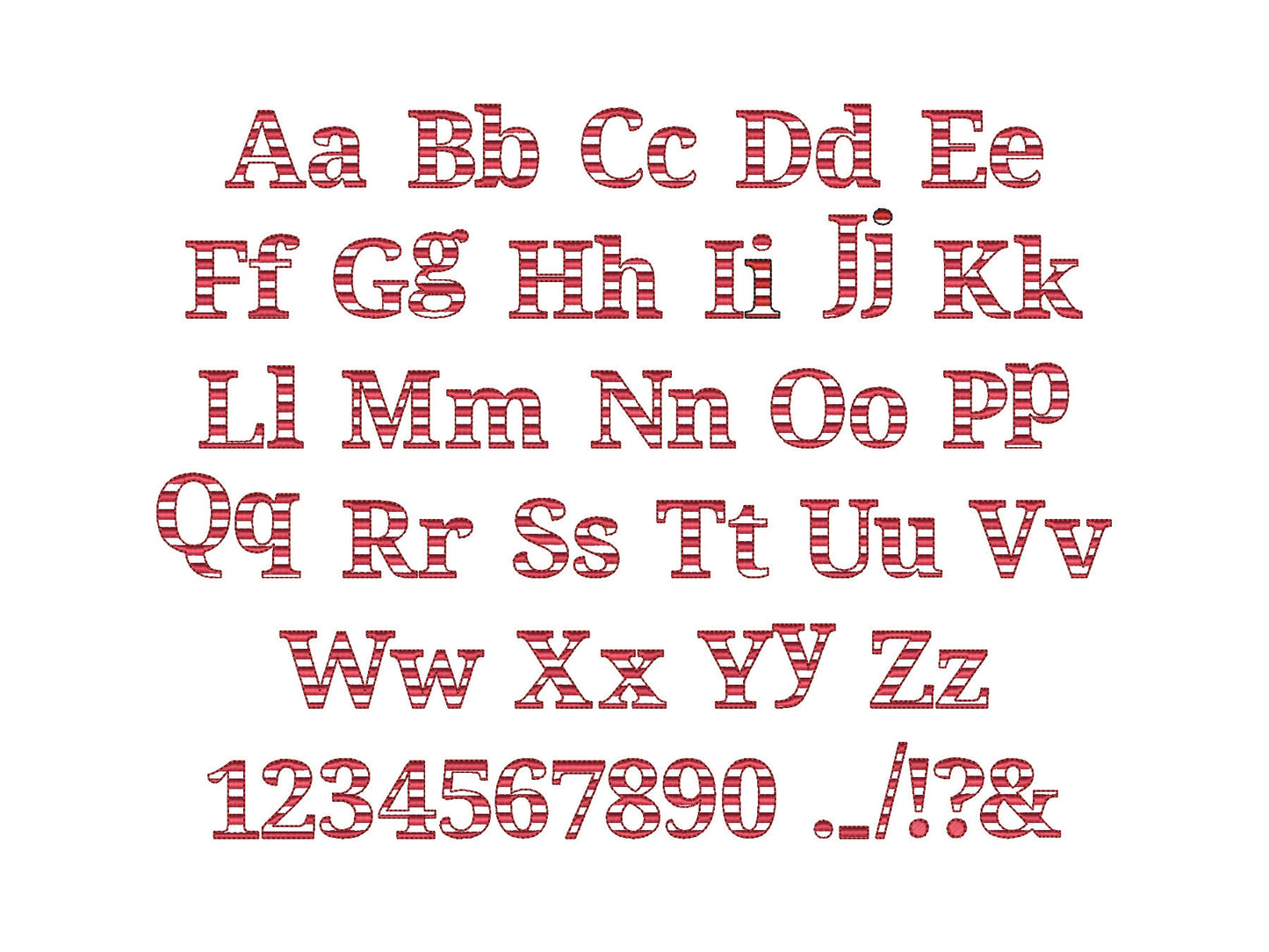
Or click to open the linkA striped block font stitched in stripes only, so the fabric shows through. Great for names and monograms on shirts, bags and pillows.
Open letters filled with stripes. Uppercase and lowercase letters, numbers and punctuation in six sizes: 1.2, 1.5, 1.9, 2.2, 2.7 and 3.2 inches.